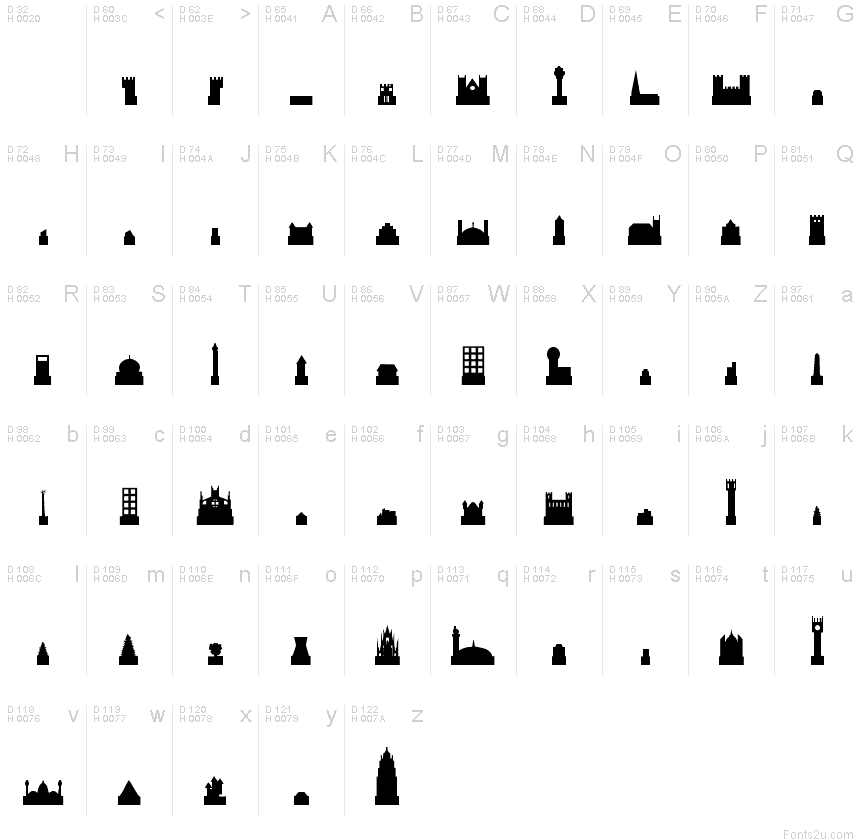
Cityscape"
Cityscape font by David F. Nalle is a free dingbats typeface that drops a whole skyline into your layout with crisp, inky silhouettes. The shapes feel like cut-paper rooftops—blocky towers, sharp spires, and varied building rhythm—so you can suggest “city” instantly without hunting for illustrations.
Using Cityscape, try it on travel posters, event flyers, city-guide covers, map headers, website hero strips, album art, and simple brand marks that need an urban wink. Set it large so the skyline reads cleanly, then pair it with a neutral sans for any accompanying text; this free font works best when it’s allowed to breathe.